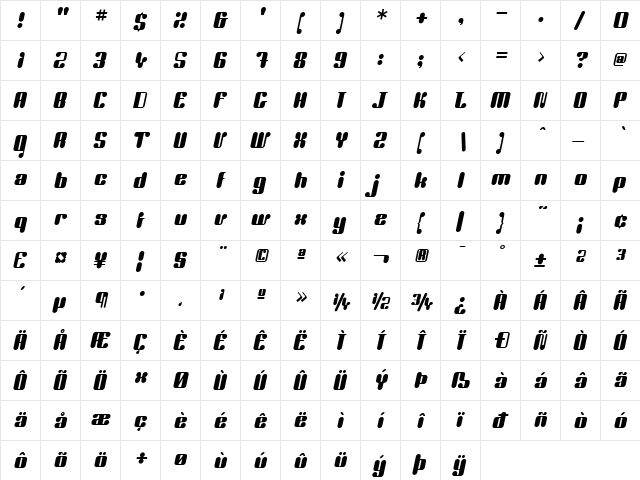
UniteAparteICG Medium Italic
Design Context for UniteAparteICG Typeface
UniteAparteICG is a composed and adaptable typeface that performs quietly and consistently across a wide range of design contexts. The dynamic lean of this cut emphasises speed and emphasis in any layout.
Pro Tip: Try UniteAparteICG for annotation and caption copy alongside an upright companion — the contrast in angle creates a dynamic but ordered typographic system.